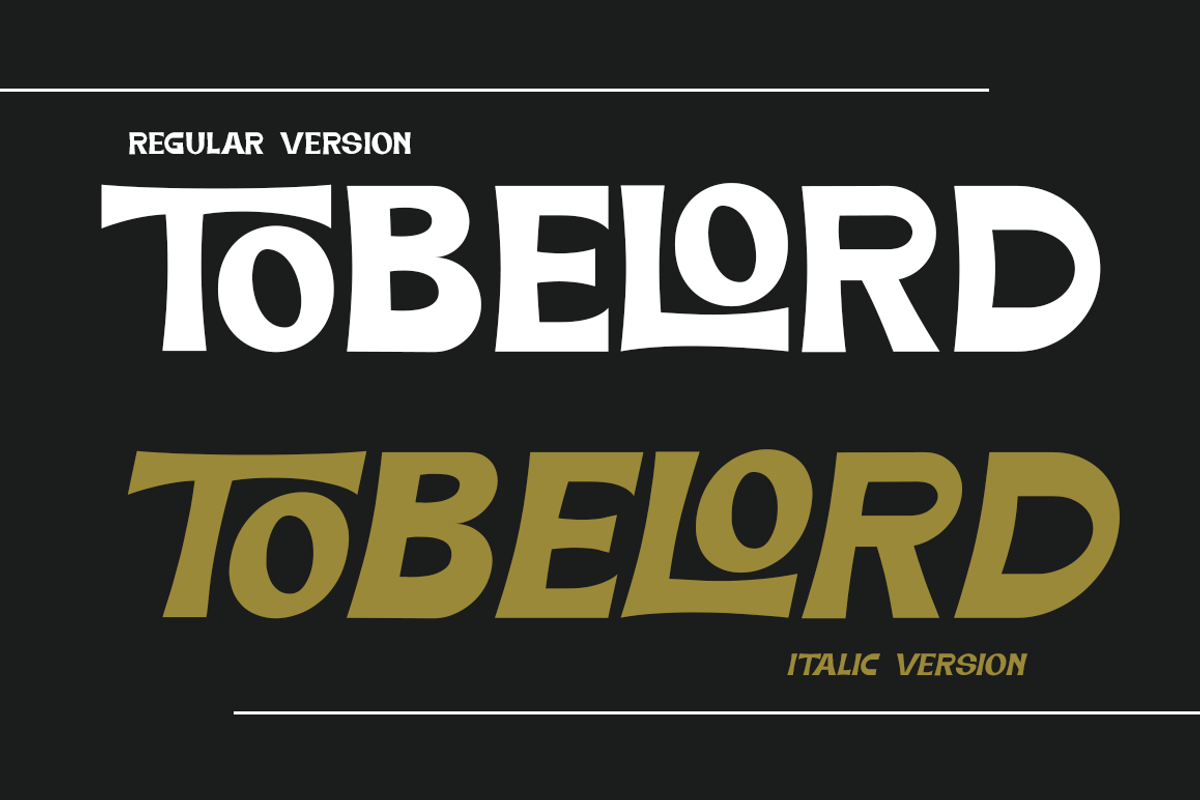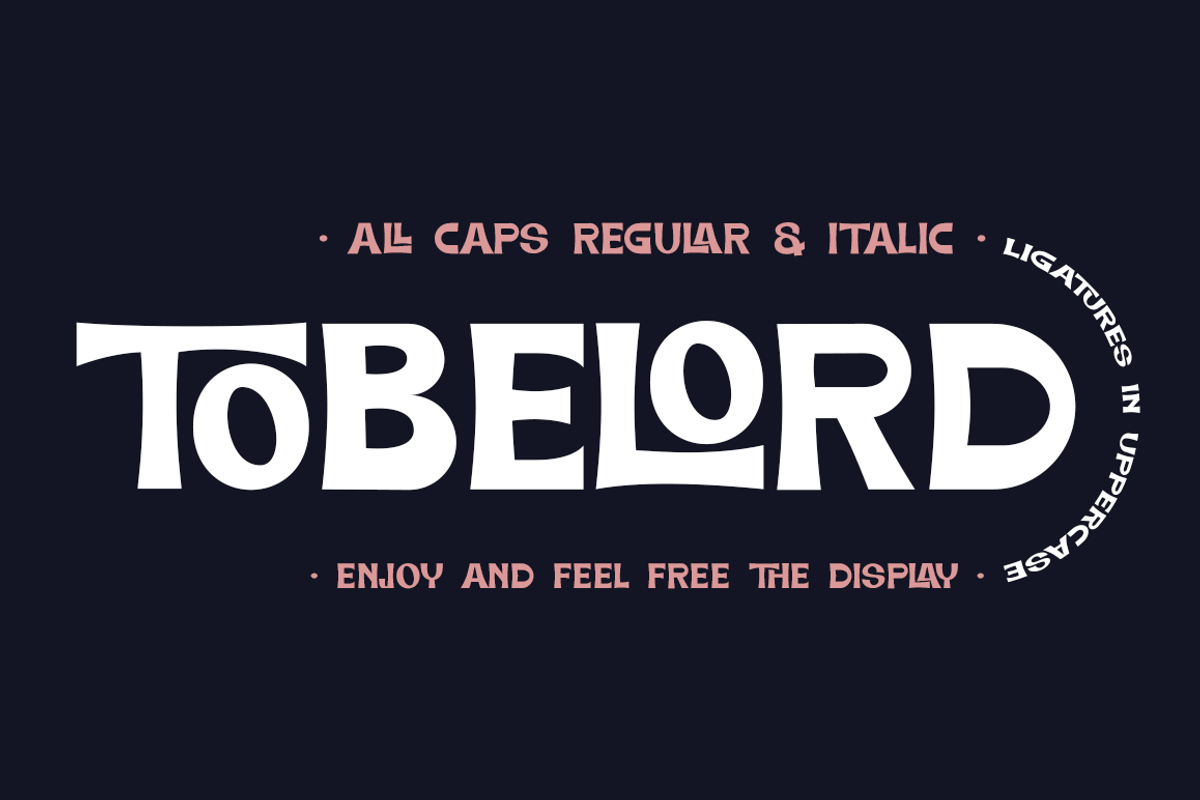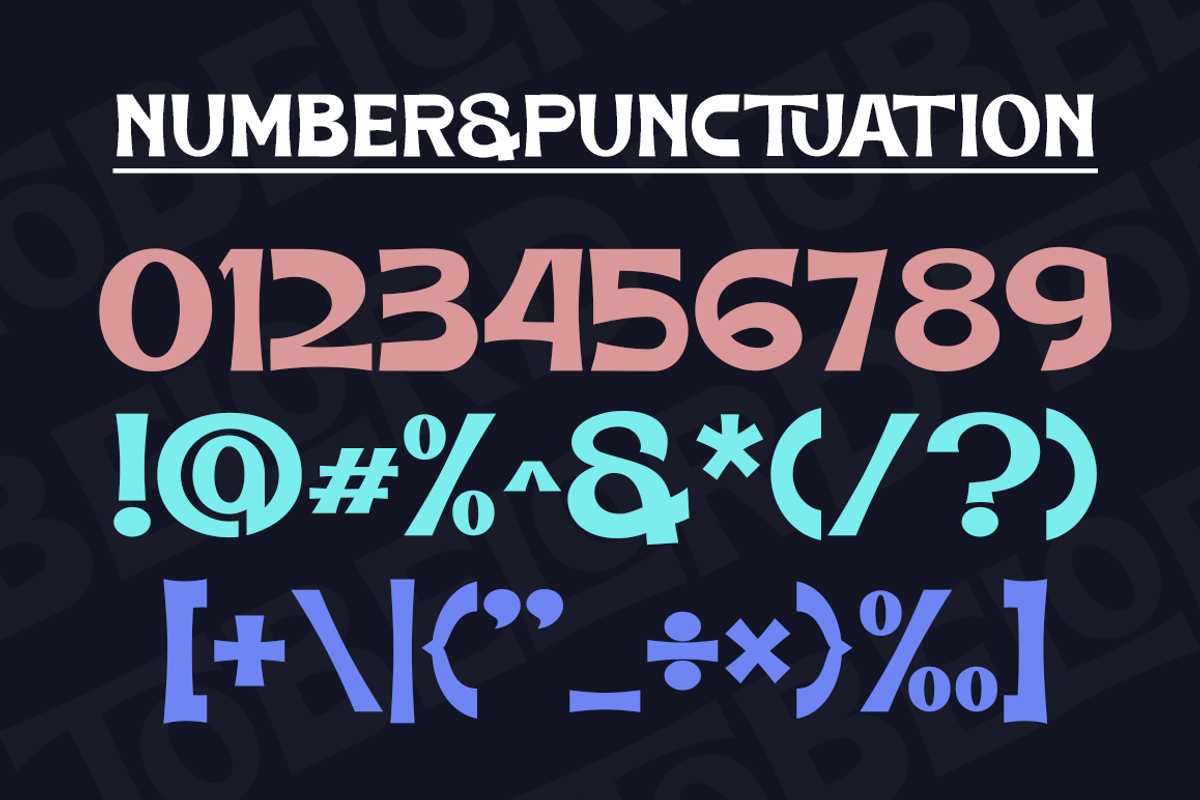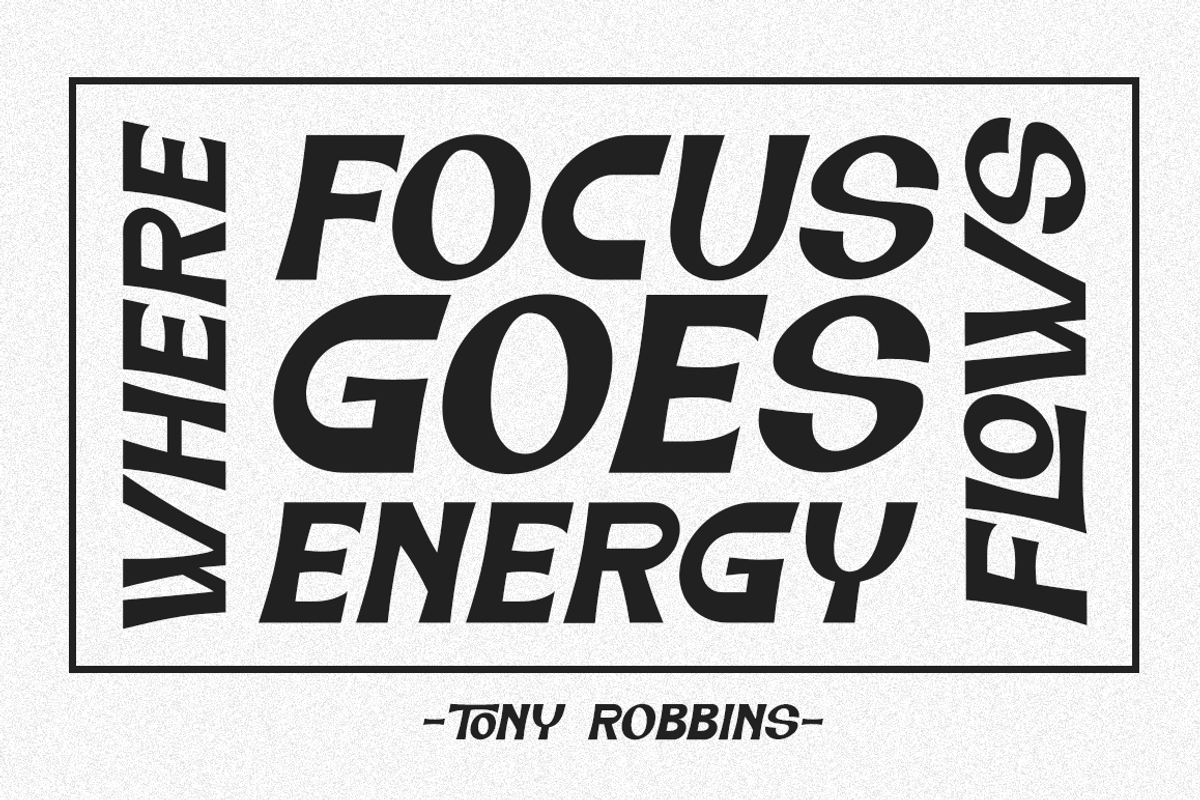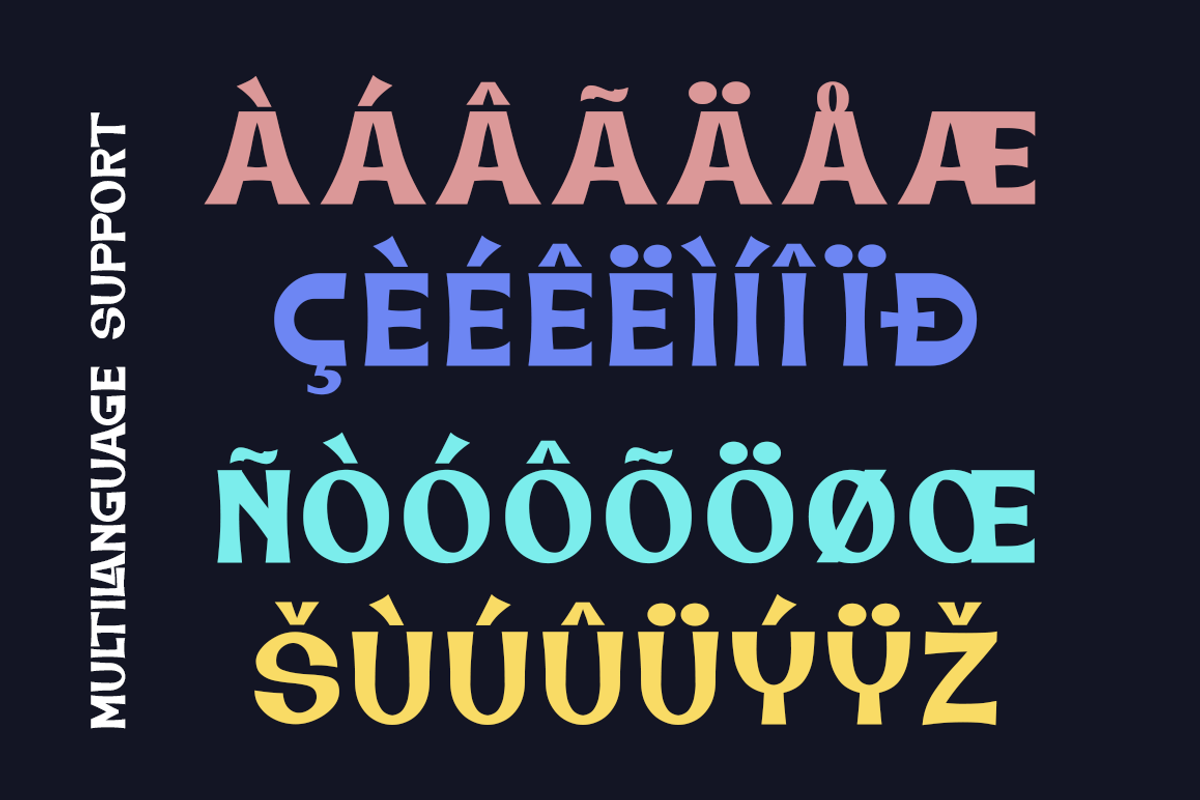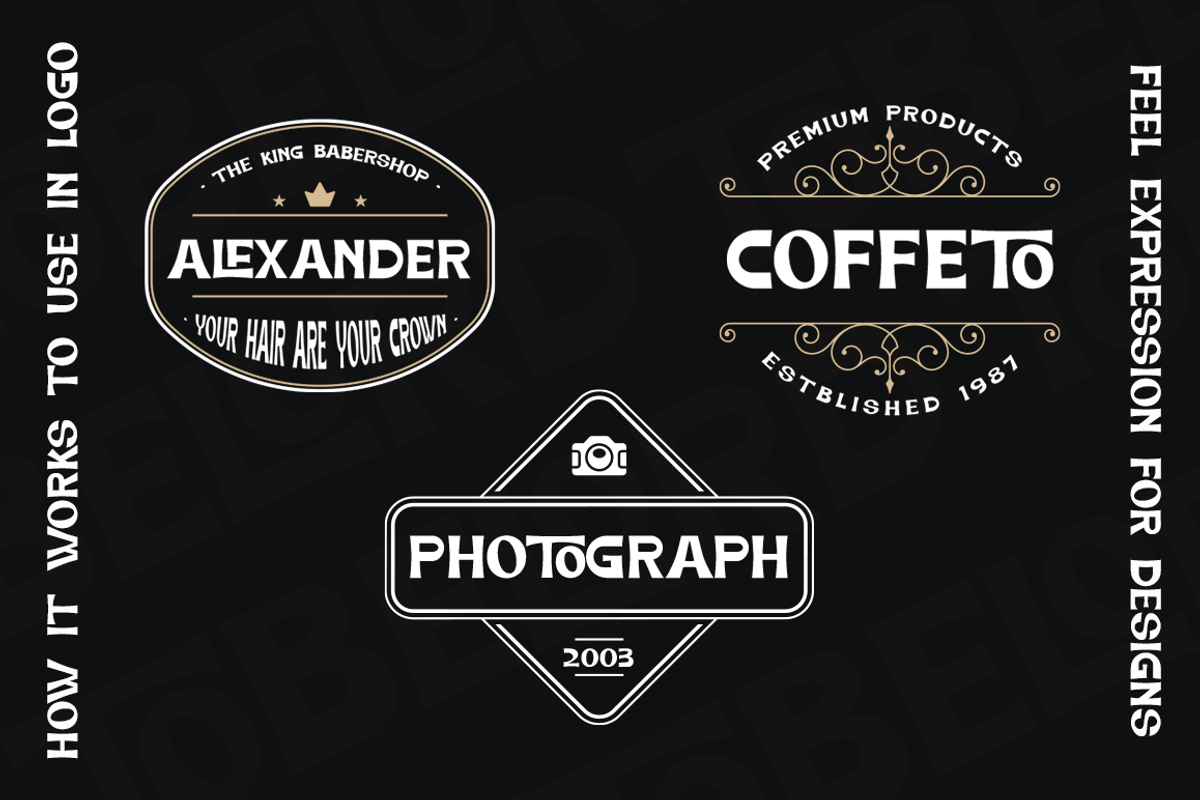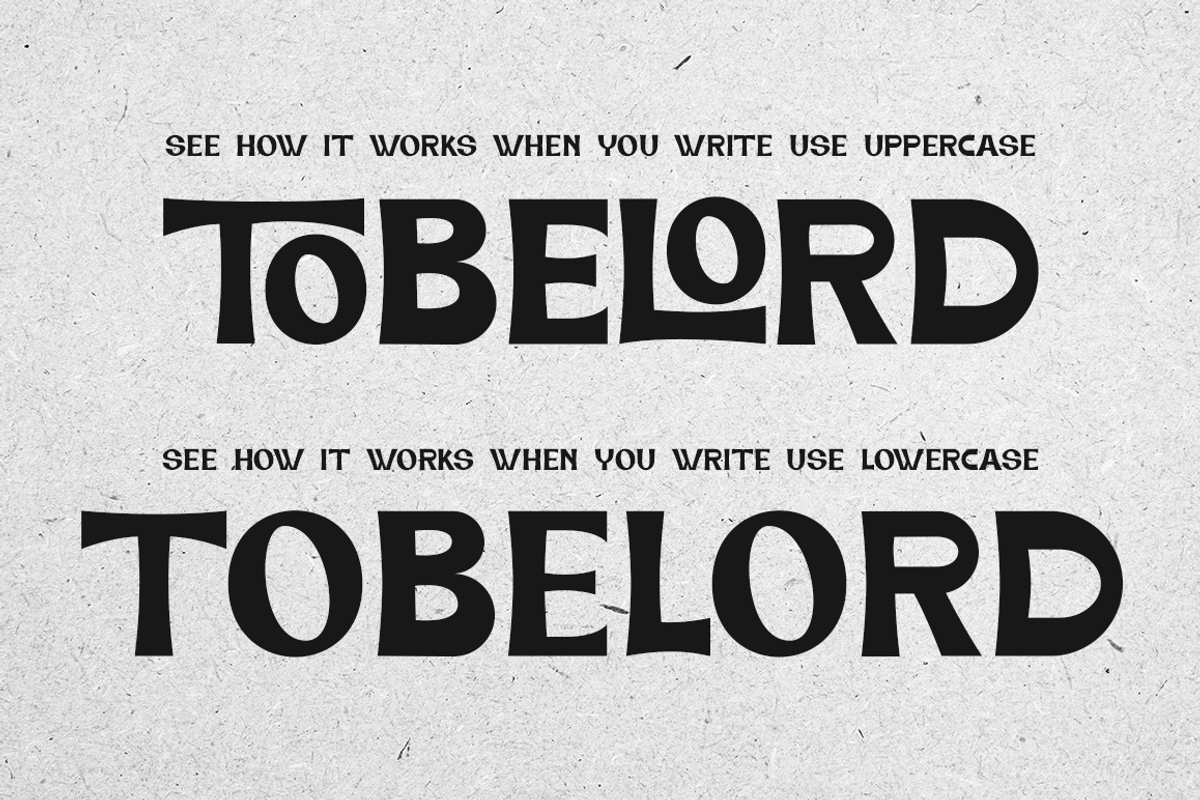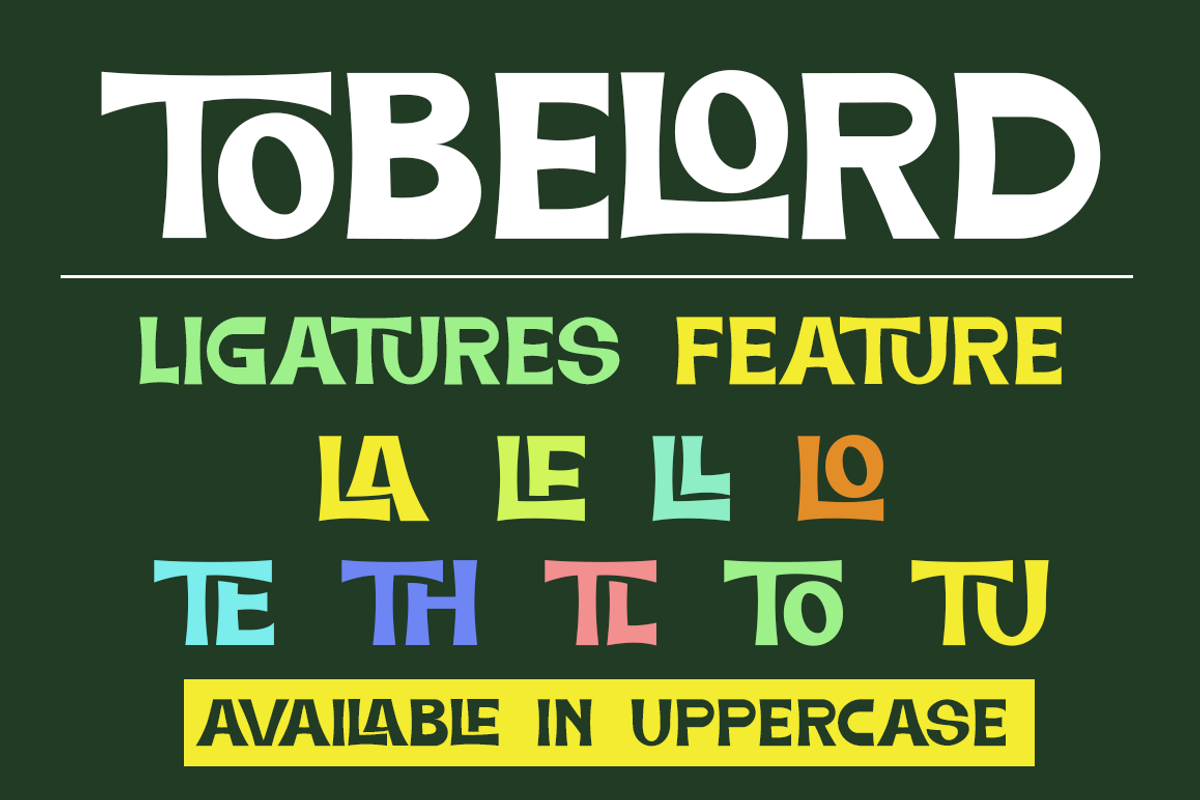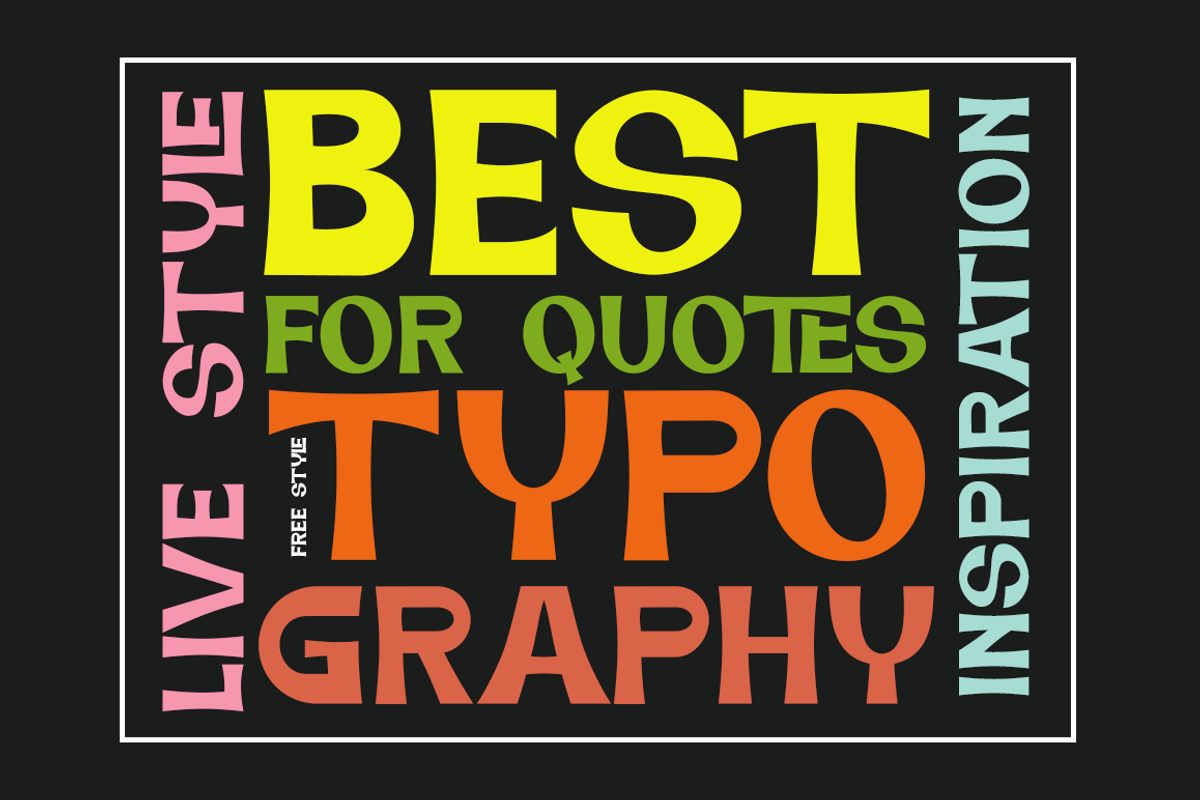
TOBELORD Display Sans Serif
TOBELORD is a strong modern sans serif style with All Caps feel nice balanced. Its wide range of uppercase with ligatures allow versatile design options and works perfectly for headlines, logos, posters, packaging, T-shirts and much more.
- Regular and Italic version
- Character set A-Z
- Ligatures in Uppercase
- Accented Characters
- Multiple Languages Supported